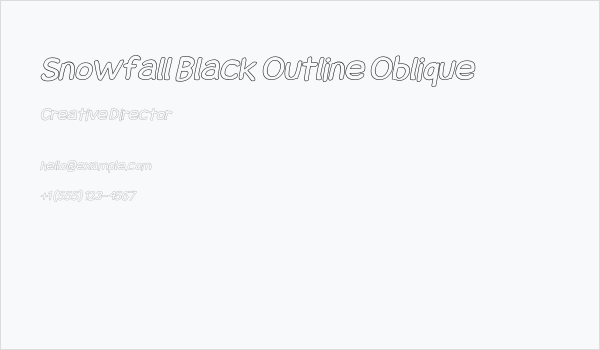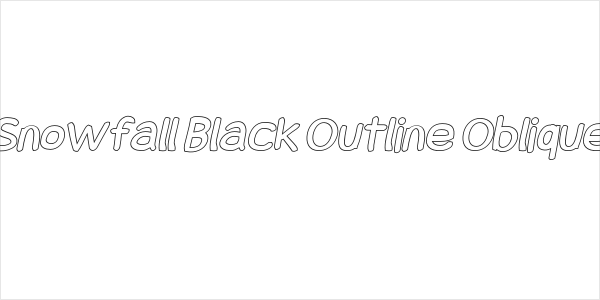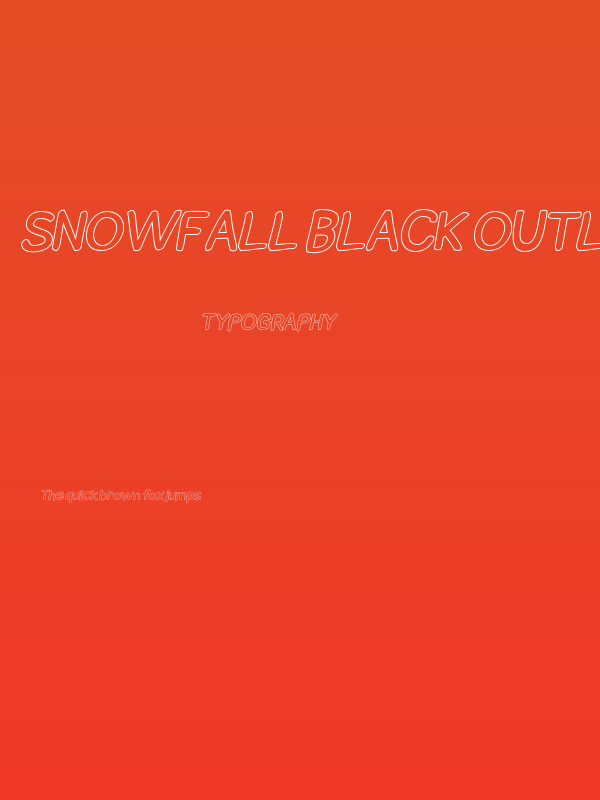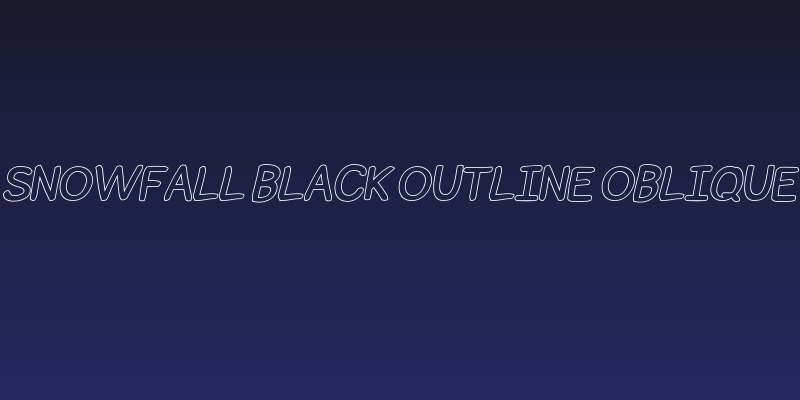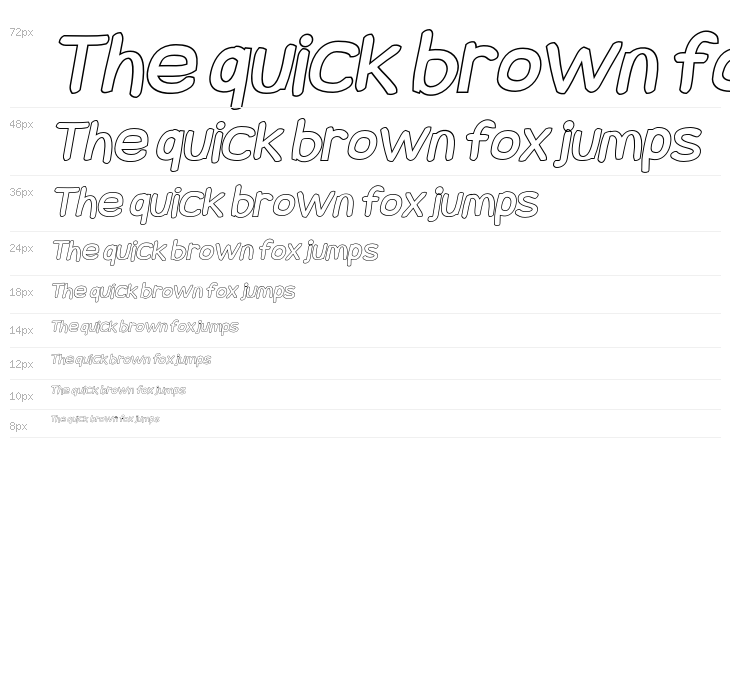
Snowfall Black Outline Oblique Font
Snowfall Black Outline Oblique Description
This font features a playful and bold outline style with an oblique slant, giving it a dynamic and energetic appearance. The characters are well-defined with a consistent stroke width, creating a uniform look across both uppercase and lowercase letters. The numbers and special characters maintain the same stylistic approach, ensuring cohesion throughout. Its outlined nature makes it ideal for layering effects or use in designs where a bold statement is needed without overwhelming the viewer. The font's oblique angle adds a sense of movement, making it suitable for modern and creative projects.
| Proposed Projects | Ideal for posters, headlines, logos, and any design requiring a bold and playful touch. |